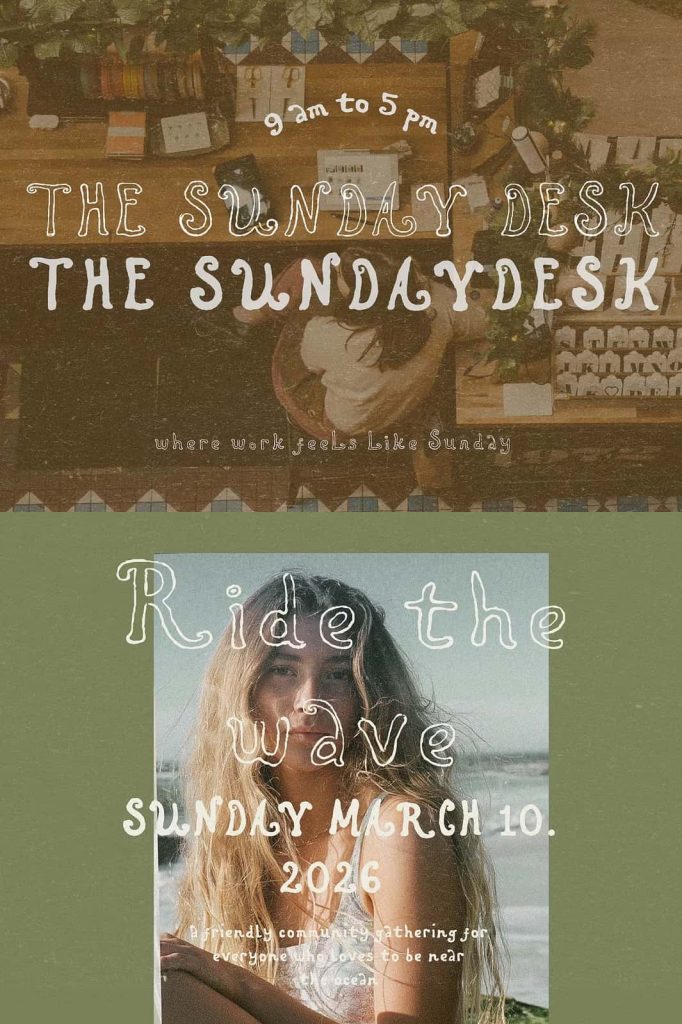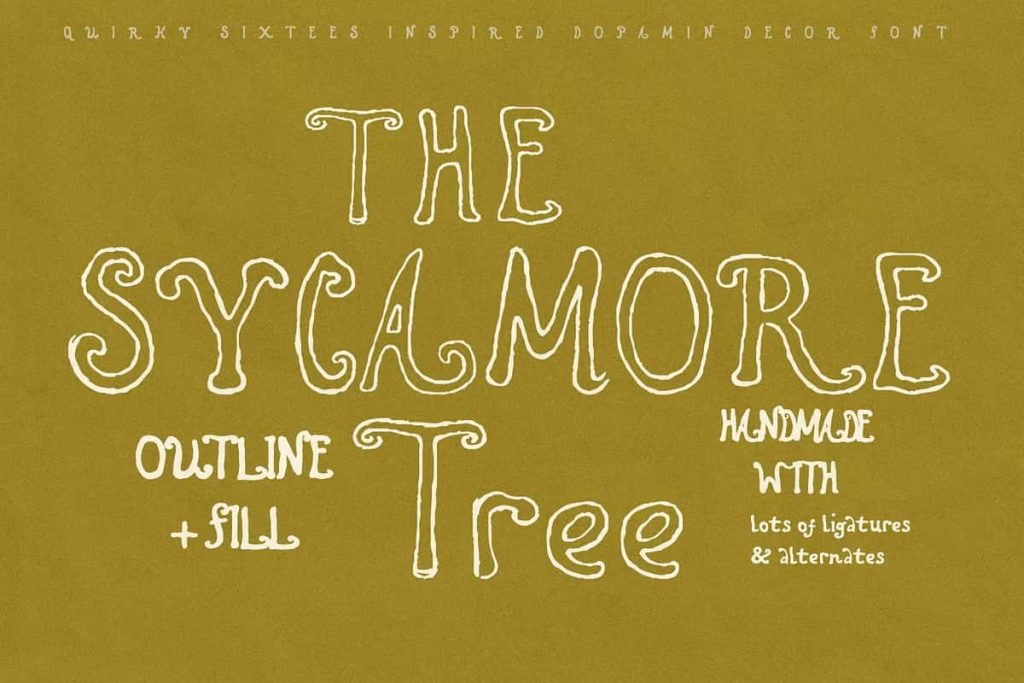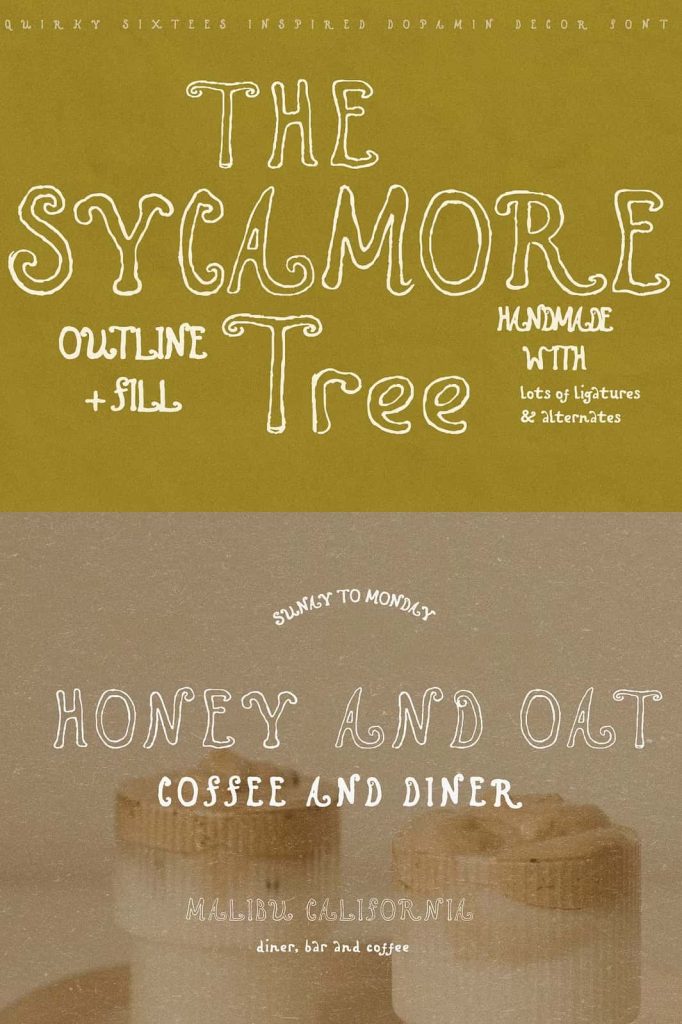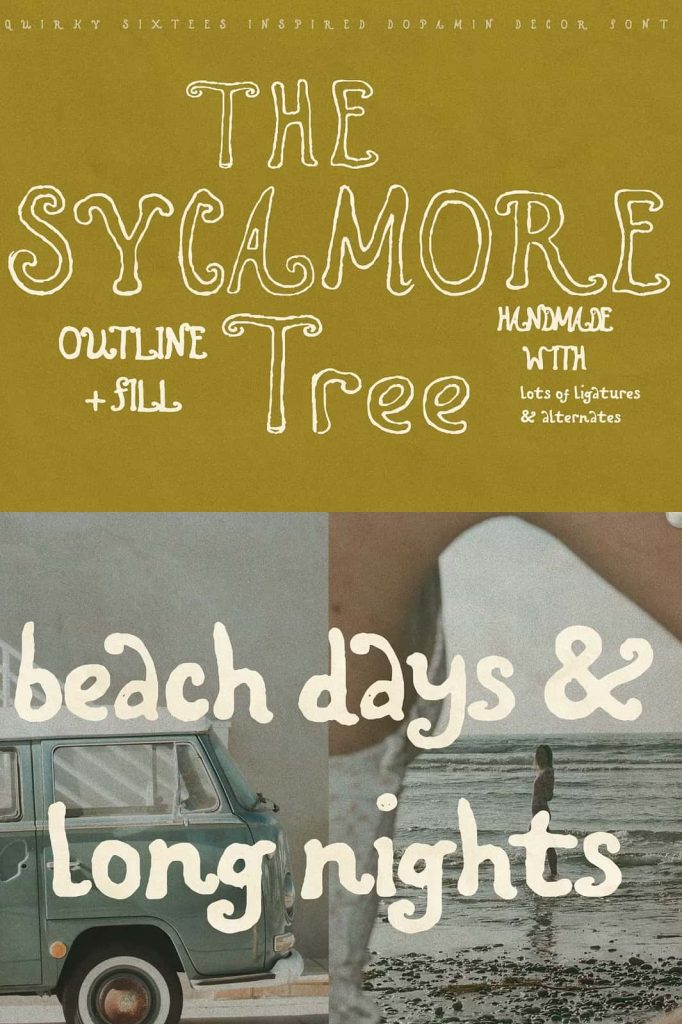
Sycamore Tree Retro Outline Font for Bold Artistic Designs
Sycamore Tree is a striking hand-lettered retro outline font that captures the expressive energy of 70s poster culture. Inspired by a carefree Californian spirit, this typeface blends bold shapes with a handcrafted aesthetic to deliver designs full of warmth, personality, and artistic freedom. With both a filled bold version and a signature outlined style, Sycamore Tree gives you the flexibility to create eye-catching visuals that stand out in any creative setting.
Inspired by 70s Poster Culture
Sycamore Tree draws its character from the vibrant and experimental design movement of the 1970s. This era embraced bold typography, unconventional layouts, and expressive forms, and this font brings those qualities into modern design. Its flowing letterforms and artistic curves reflect a sense of freedom and creativity that continues to inspire designers today.
You can use this font to evoke nostalgia while still producing fresh and relevant work. The retro influence adds depth and uniqueness, helping your designs connect with audiences on a visual and emotional level.
Handcrafted Feel with Artistic Detail
Each letter in Sycamore Tree carries a handcrafted quality that makes the font feel authentic and organic. The subtle irregularities and natural curves create a human touch that digital fonts often lack. This attention to detail ensures that your typography feels expressive rather than mechanical.
The hand-lettered style also allows you to build designs that feel personal and artistic. Whether you create posters or branding materials, this font helps you communicate creativity with confidence.
Filled and Outline Styles for Creative Flexibility
Sycamore Tree includes two complementary styles: a bold filled version and its signature outlined counterpart. The filled style delivers strong visual weight, making it perfect for headlines and focal points. The outline version introduces a lighter, more decorative feel that adds contrast and dimension.
By combining these two styles, you can create layered and dynamic compositions. This flexibility allows you to experiment with depth, hierarchy, and visual interest without needing additional typefaces.
Create Depth and Dimension
The outline style opens up creative possibilities for layering and styling. You can overlay it with the filled version or use it independently to create unique effects. This approach helps you build designs that feel rich and engaging while maintaining a cohesive look.
These features make the font especially useful for projects that require bold and artistic typography.
Perfect for Posters and Album Covers
Sycamore Tree excels in large-format designs such as posters and album covers. Its bold shapes and retro character ensure that your typography becomes the focal point of the composition. The font captures attention instantly, making it ideal for promotional materials and artistic projects.
You can use it to create visuals that feel expressive, energetic, and memorable. Its unique style helps your work stand out in competitive creative spaces.
Ideal for Branding and Creative Identity
If you want to build a brand that feels bold and unconventional, Sycamore Tree provides the perfect foundation. Its artistic style helps you create logos and brand elements that reflect creativity and individuality. The font communicates a sense of freedom and originality, making it suitable for brands that want to break away from traditional design norms.
Designers can use this font to establish a strong and recognizable visual identity across different platforms.
Versatile for Modern Creative Projects
Sycamore Tree adapts easily to a wide range of creative applications. You can use it for social media graphics, packaging, editorial layouts, and more. Its bold and expressive nature ensures that your designs remain engaging across different formats.
The font also pairs well with simpler typefaces, allowing you to create balanced compositions that combine artistic flair with readability.
Key Features of Sycamore Tree Font
- Hand-lettered retro outline font inspired by 70s design
- Includes bold filled and outlined styles
- Artistic curves and handcrafted character
- Perfect for posters, album covers, and branding
- Versatile for print and digital creative projects
Create Bold and Expressive Visuals
Sycamore Tree retro outline font gives you the tools to create designs that feel bold, artistic, and full of personality. Its combination of vintage inspiration and modern flexibility allows you to explore creative ideas without limitations.
If you want to produce work that stands out with a unique and expressive style, Sycamore Tree is an excellent choice. Use it to elevate your typography, enhance your branding, and bring a vibrant retro spirit into your creative projects.